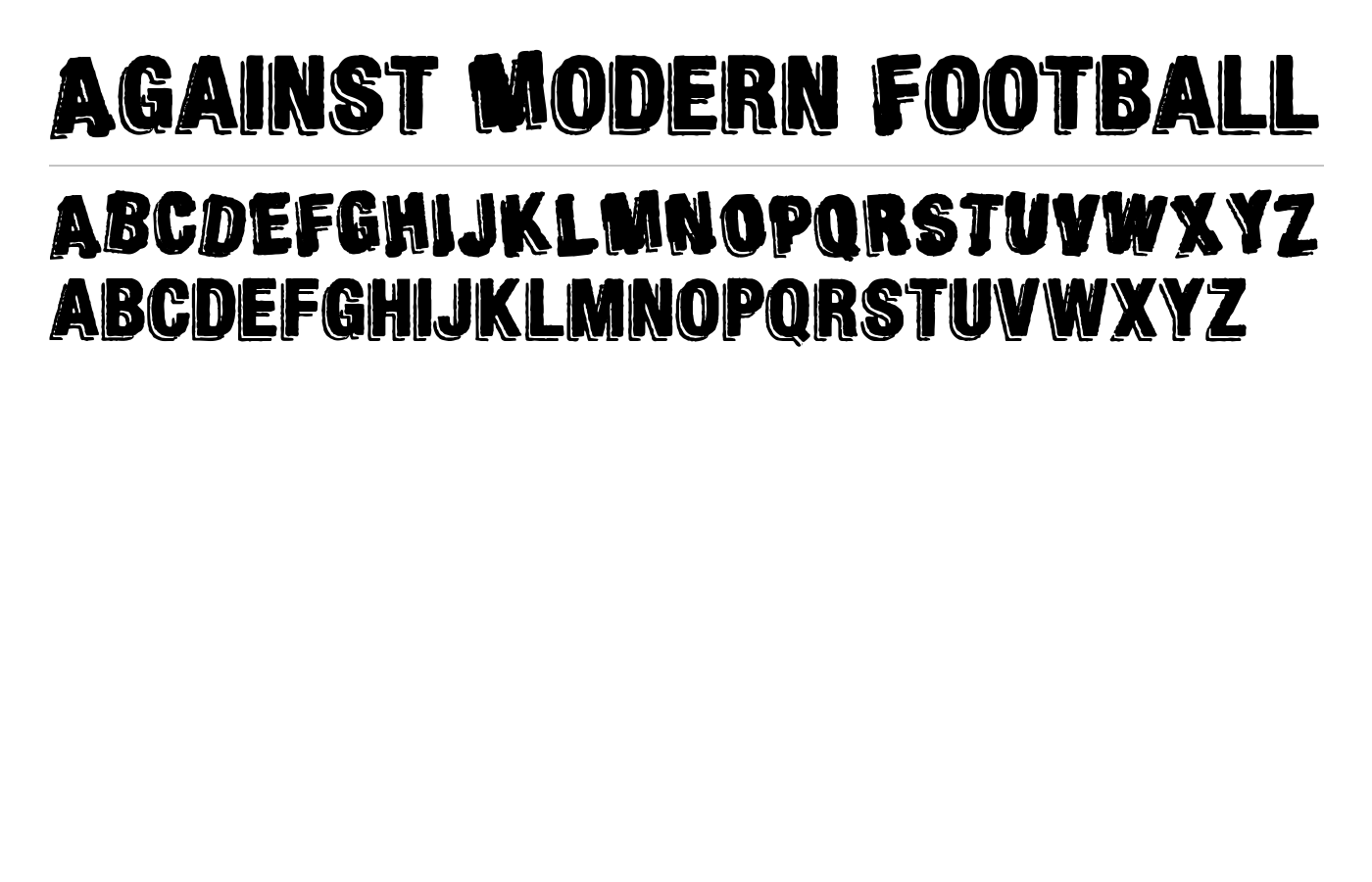
Against Modern Football is a bold, distressed sans serif font with a strong and gritty character. Its rough texture and uneven edges give it a dynamic, vintage sports feel, making it perfect for creating eye-catching headlines, posters, and branding that need an informal yet powerful presence. This font works especially well in designs that want to evoke energy and rebellious spirit with a handcrafted look.
Against Modern Football Font
About Against Modern Football Font
| Font family | Against Modern Football Font |
| Designer | Fred - 28fonts |